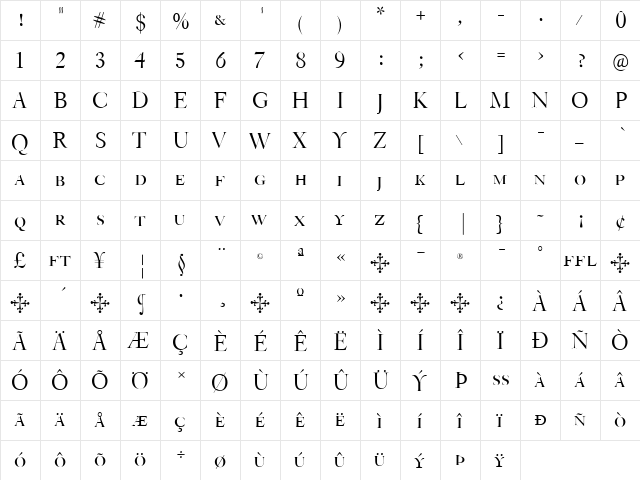
EldoradoDisplay Regular Font Preview
EldoradoDisplay Regular
EldoradoDisplay Regular Font Details
Design Context for EldoradoDisplay Typeface
EldoradoDisplay brings ornamental detail and strong personality to headlines and identities, where visual impact matters more than quiet functionality.
Font Pairing: Pair with a clean neutral sans-serif for body copy to let EldoradoDisplay's character lead without overwhelming the composition.
Pro Tip: Use EldoradoDisplay exclusively at display sizes — it was designed to be seen, not read at length. Let a neutral companion handle body copy.